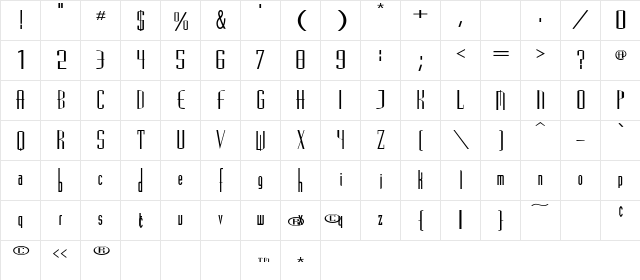
VascoSSK Bold
Design Context for VascoSSK Typeface
VascoSSK is a composed and adaptable typeface that performs quietly and consistently across a wide range of design contexts. The heavy weight commands attention and anchors typographic hierarchies.